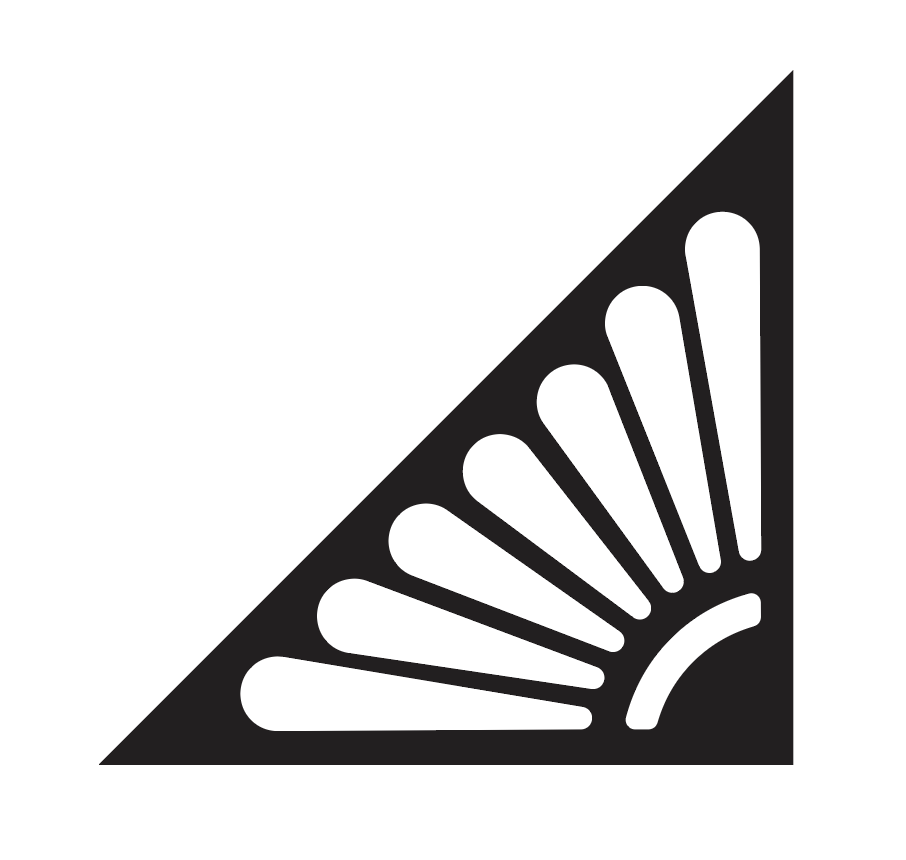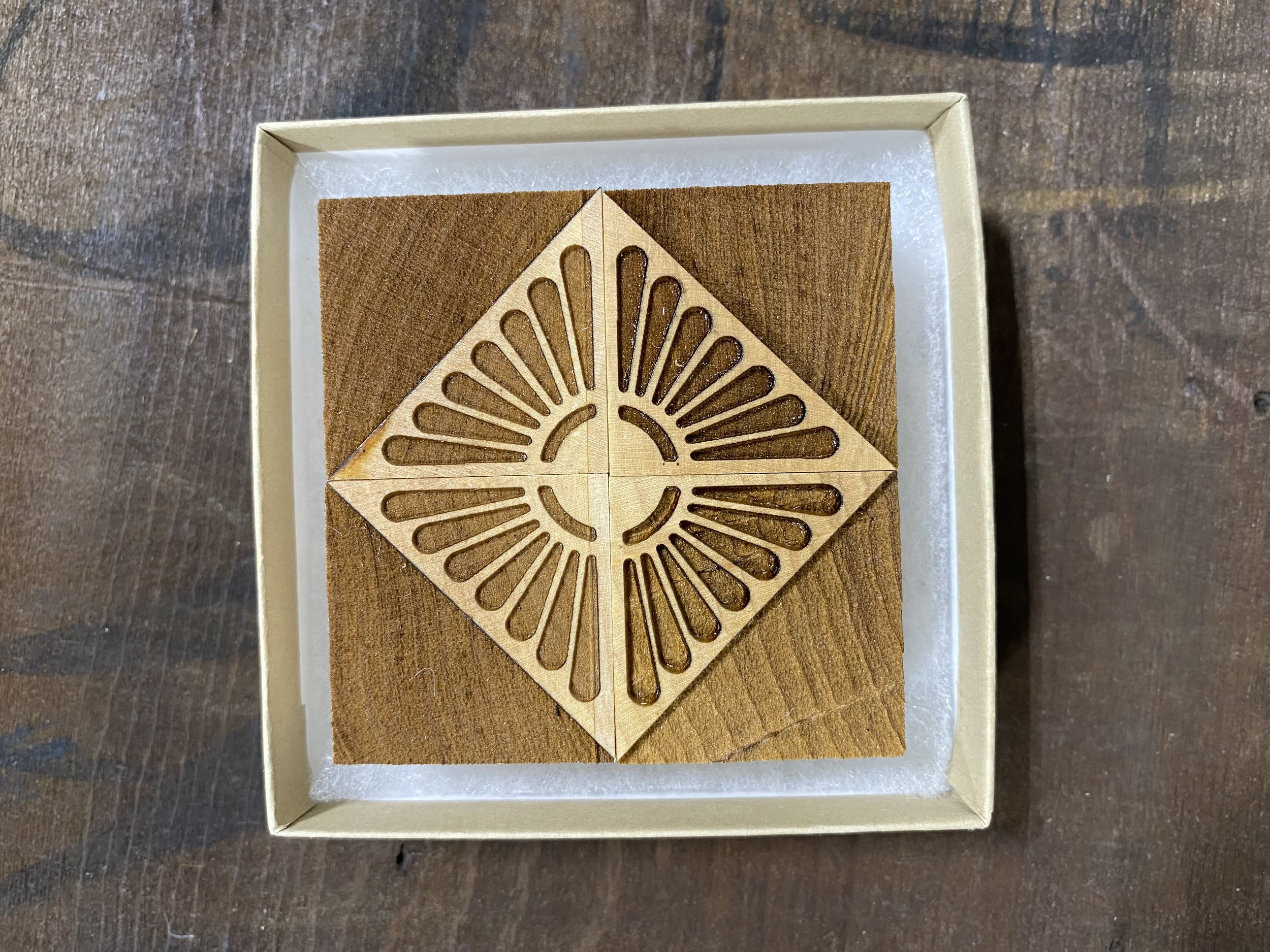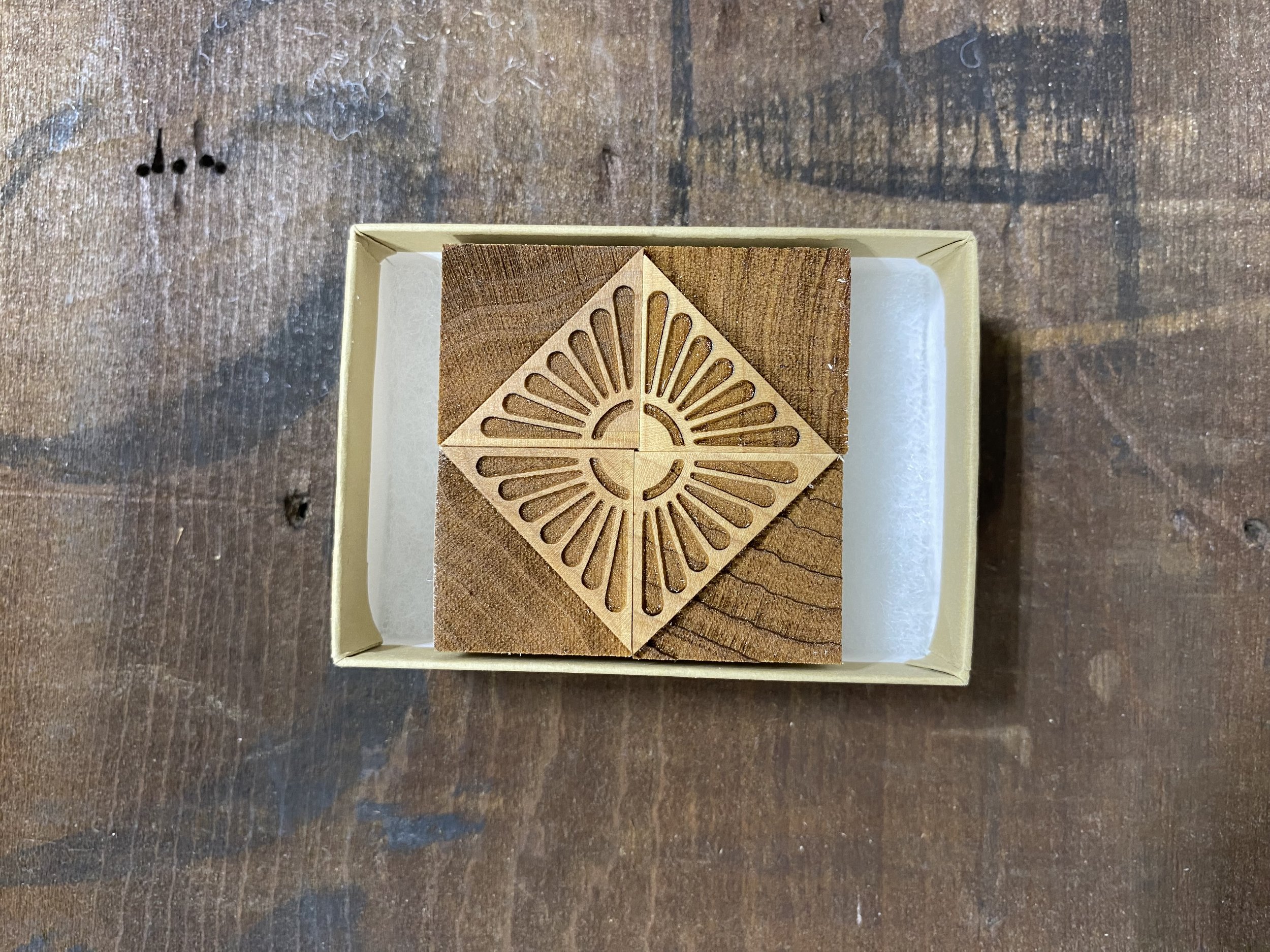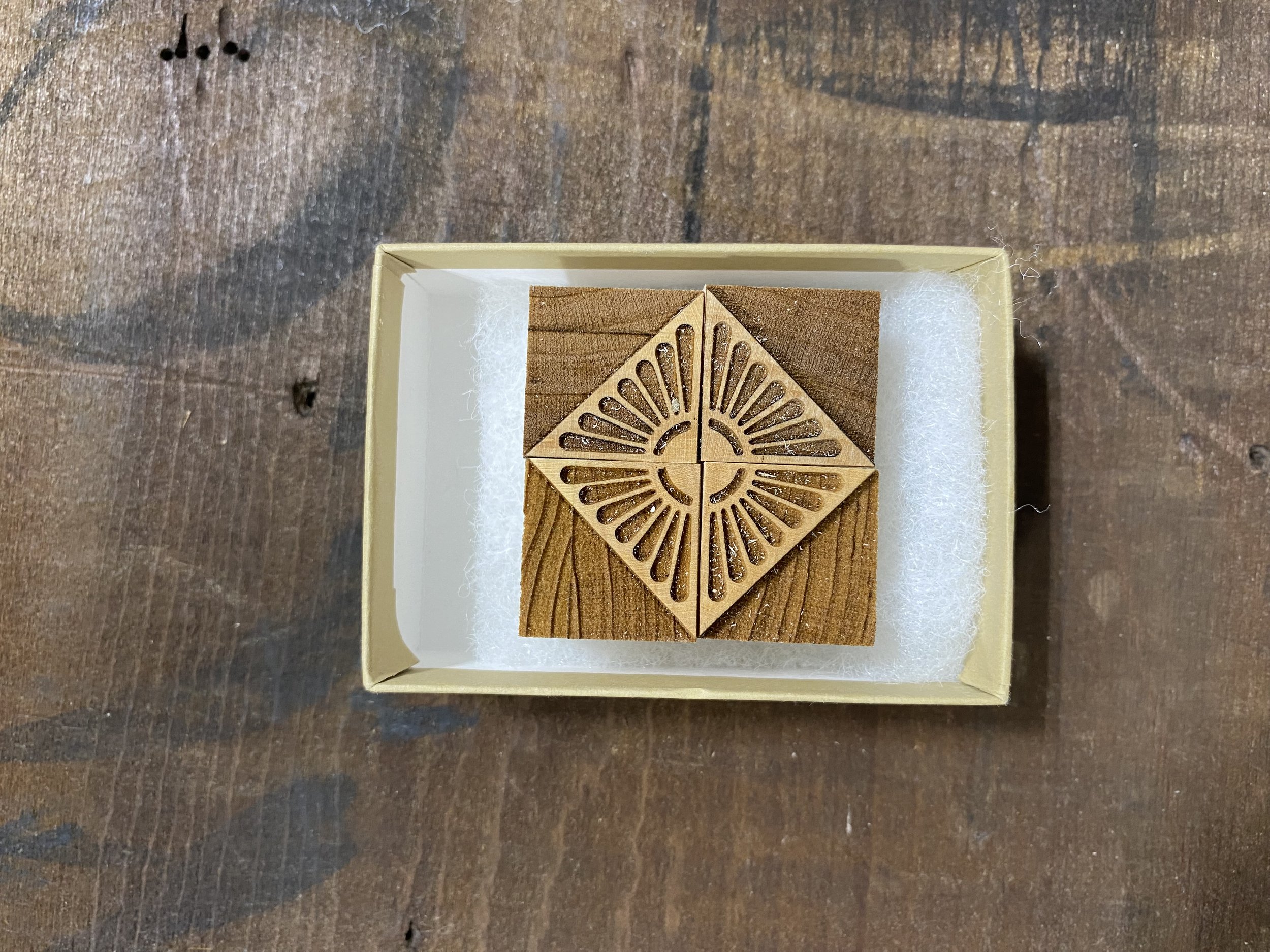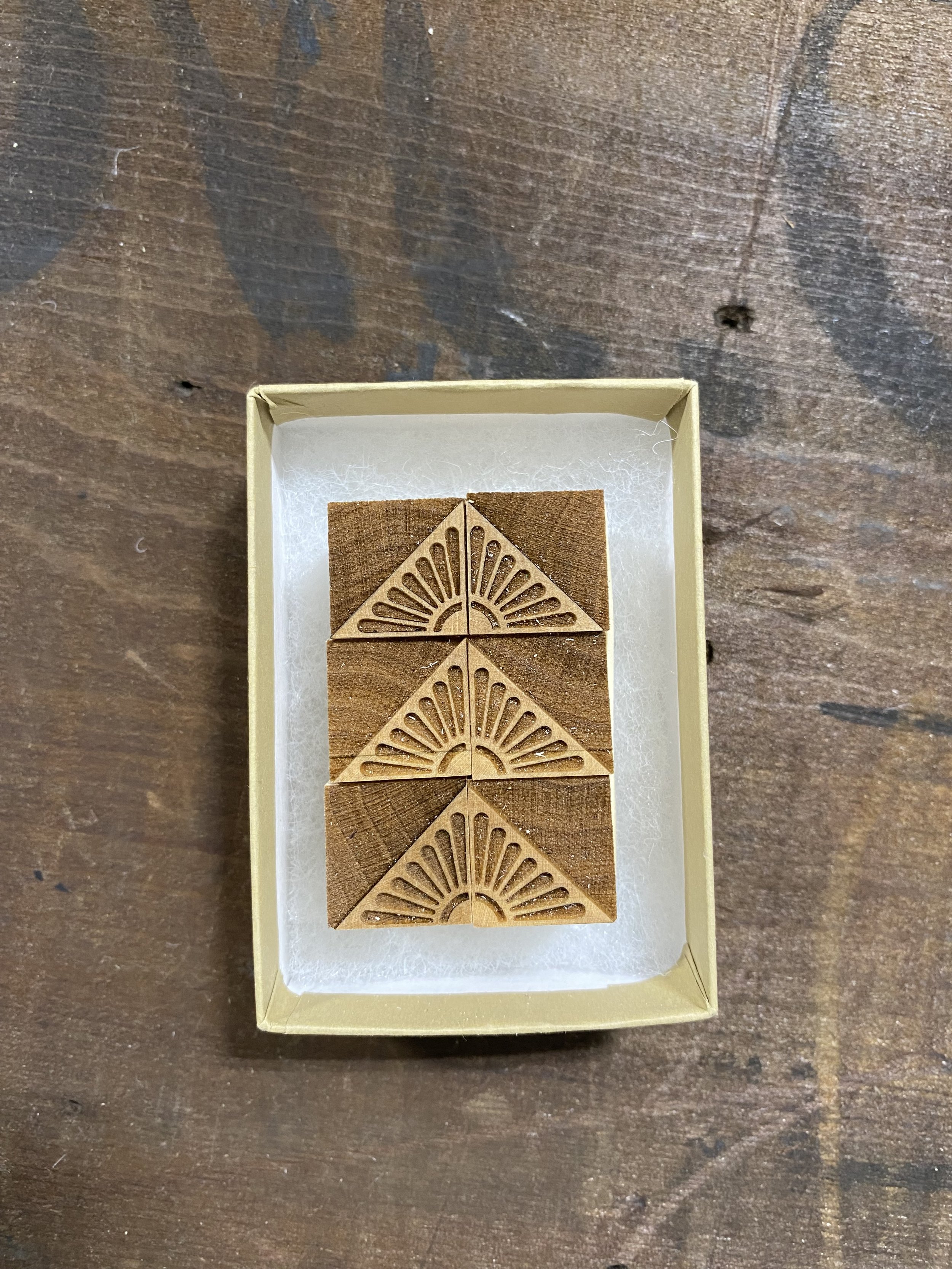
These type-high, end-grain sugar maple corner ornaments are cut to replicate historic designs by Società "Augusta" Torino. Versatile and charming, these sorts can serve as decorative “bookends” on lines of type, decorate the corners of a page, be combined with rule to create a border, form a full daisy, or even align to create a continuous decorative line.